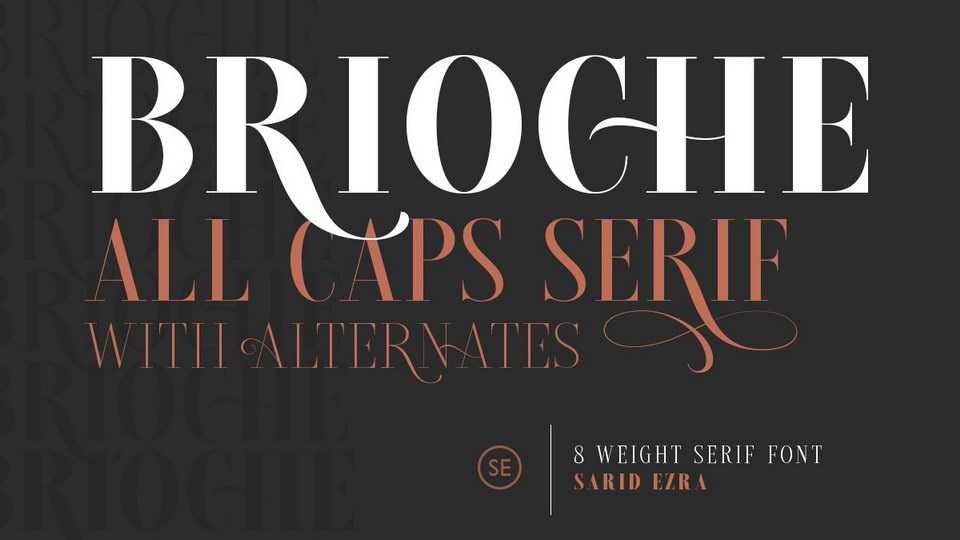
Download Brioche font, an incredibly elegant and delicate serif typeface. Brioche is designed for editorial use, but easily can be matched to an incredibly large set of projects.